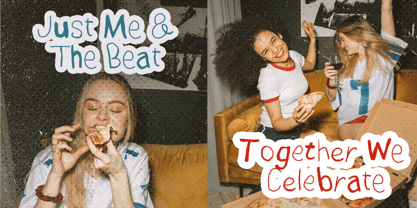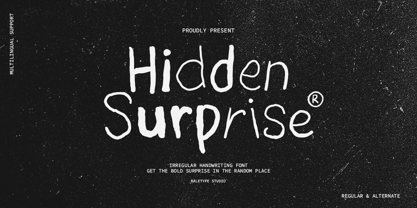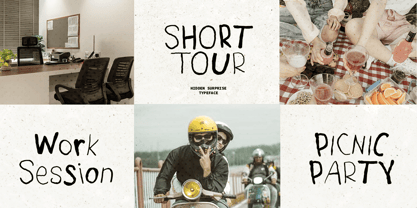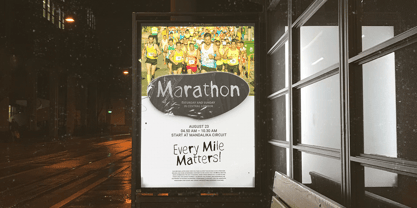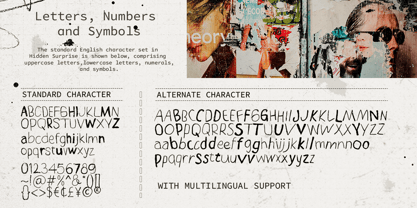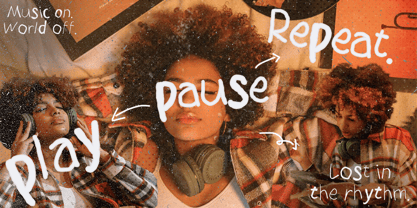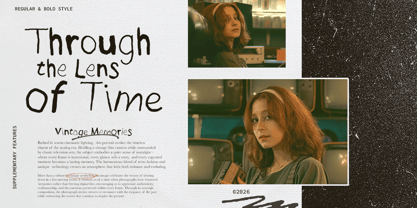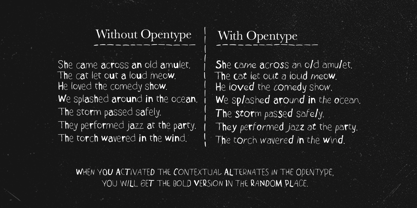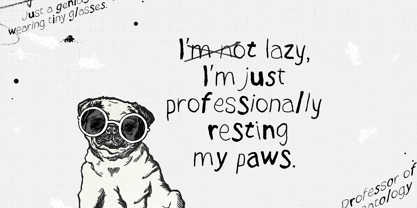
Hidden Surprise
by Bale Type
The Hidden Surprise Font Family was designed by Ridho Azumarta and published by Bale Type. Hidden Surprise contains 1 styles. More about this family
Hidden Surprise is an irregular handwritten font with unique alternates. Comes with two alternates each characters that change automatically with opentype features, you can get surprise with bold alternates that show up randomly in your text. You can use this font for any purposes such as quotes, branding, street art, or any project that needs to look eccentric yet roughly handmade looks. This font also support multi language.